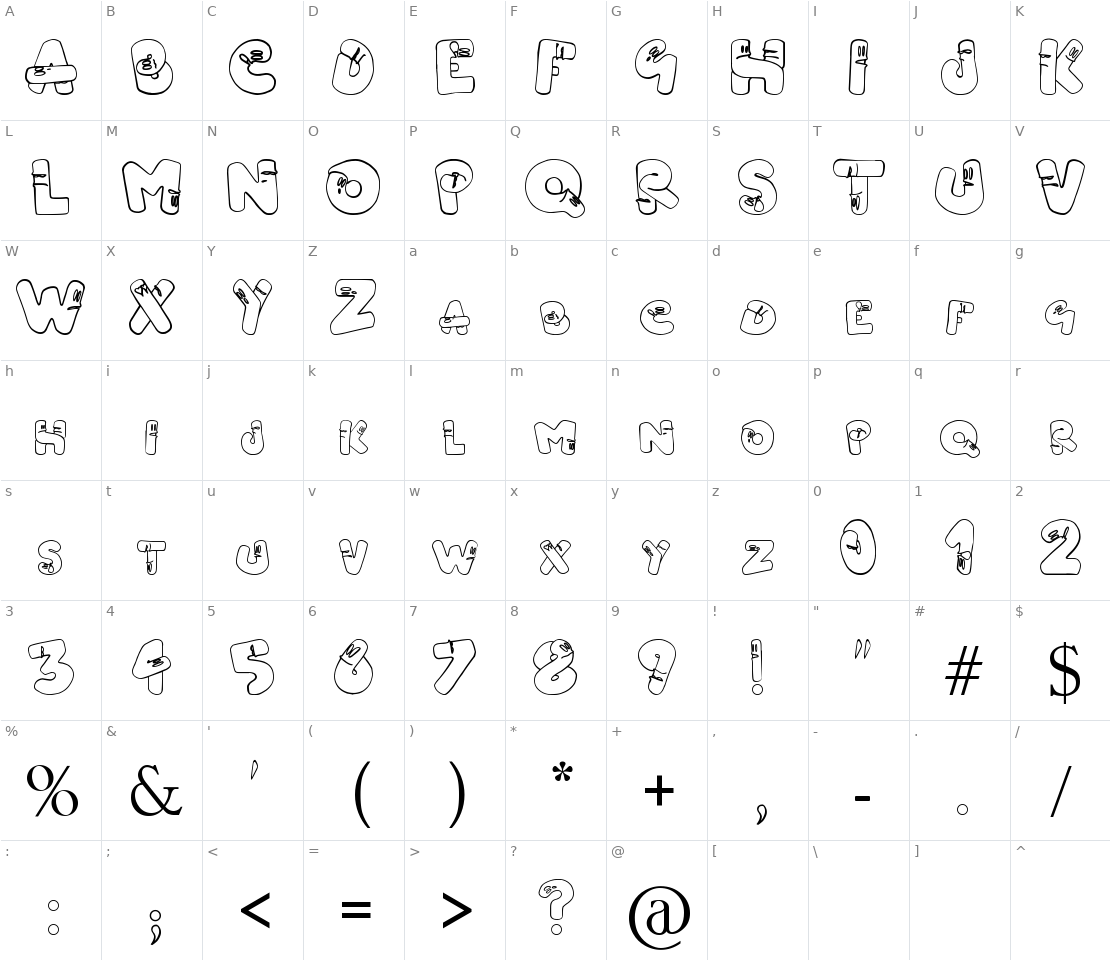
Vermi di Rouge
Vermi di Rouge is a quirky outline display face by Rouge with wobbly, doodle-like letterforms that feel hand-drawn in the most carefree way possible. The open, sketchy strokes give each character a whimsical lightness, making it a fun pick for headlines, posters, and playful branding where a loose, illustrated personality matters more than typographic precision.